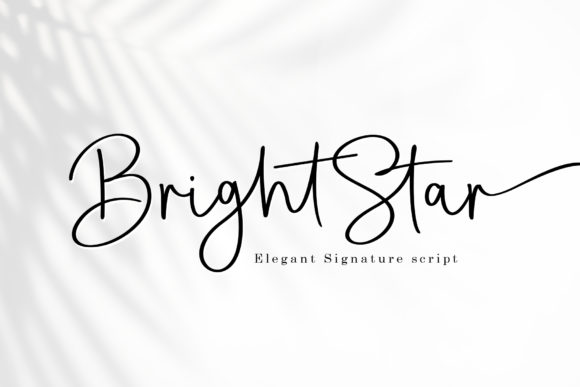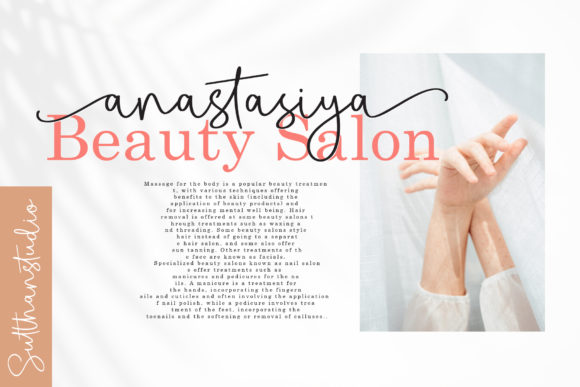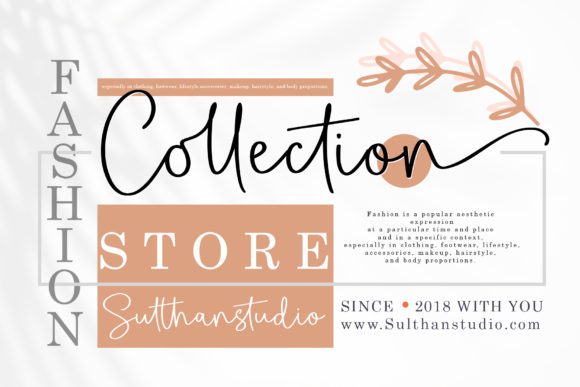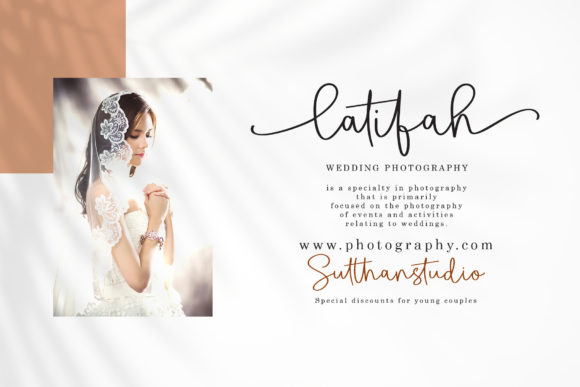
Bright Star Font: Elegant Signature Script for Wedding & Logo Design
About the Bright Star Font
The wait is over! The incredible Bright Star Font is now available for your design toolkit. Bright Star is a sweet and cursive handwritten font. This gentle font will look gorgeous on a variety of design ideas. It will add a joyful and romantic touch to each of your projects!
Bright Star’s delicate, cursive style is ideally suited for projects requiring a touch of romantic charm. It excels in short text applications such as logos, wedding invitations, short headlines, or product packaging where its handwritten quality adds a personal touch. However, its low x-height and varying stroke weights make it less suitable for extended body text or UI elements where readability is paramount.
Consider pairing Bright Star with a clean sans-serif like Lato for a modern contrast, or a classic serif such as Garamond for a more timeless feel. For a bolder statement, a geometric sans-serif like Futura could work well, providing a structured counterpoint to Bright Star’s flowing script.
The overall personality of Bright Star is undeniably friendly and romantic, making it a perfect choice for brands focusing on sweetness, handmade goods, or feminine aesthetics. Avoid using it where a strong, authoritative presence is needed.
Bright Star Font Usage Examples
Bright Star Font Example